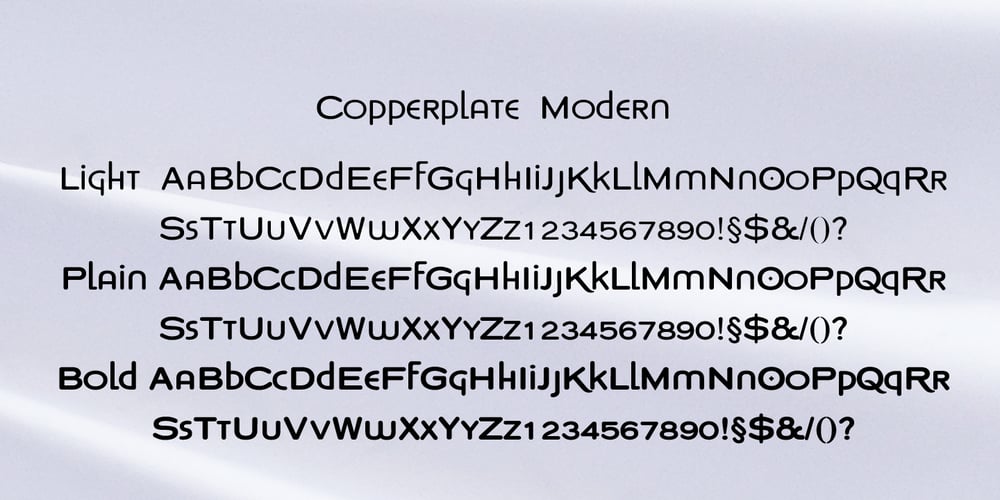
Copperplate Modern Font Family was designed by Gert Wiescher and published by Wiescher Design. Copperplate Modern contains 6 styles and family package options. Copperplate Modern is my personal version of Copperplate with lowercase letters that contrast the standard rounded capitals. For good measure I designed a glitzy “Chrome” version for each weight. Yours very glitzy Gert Wiescher